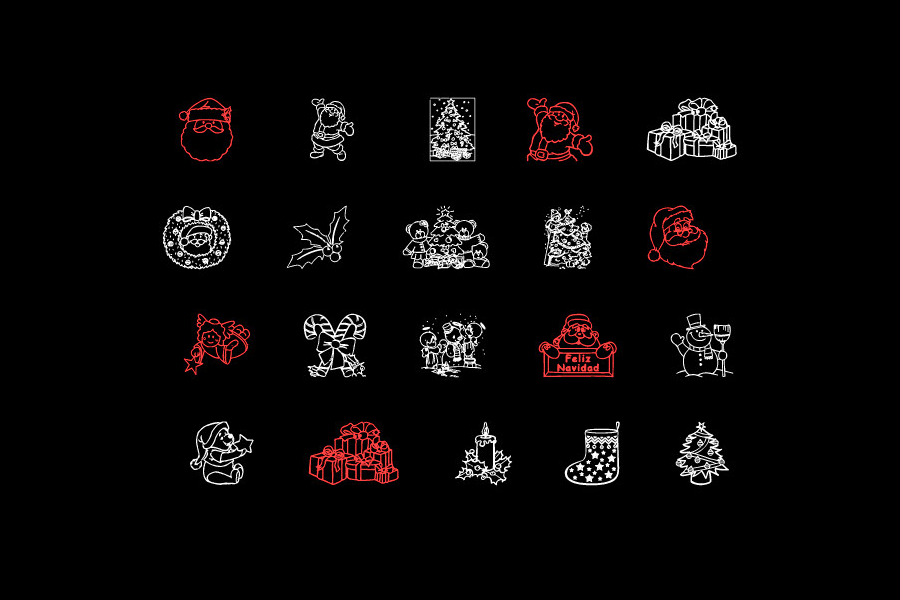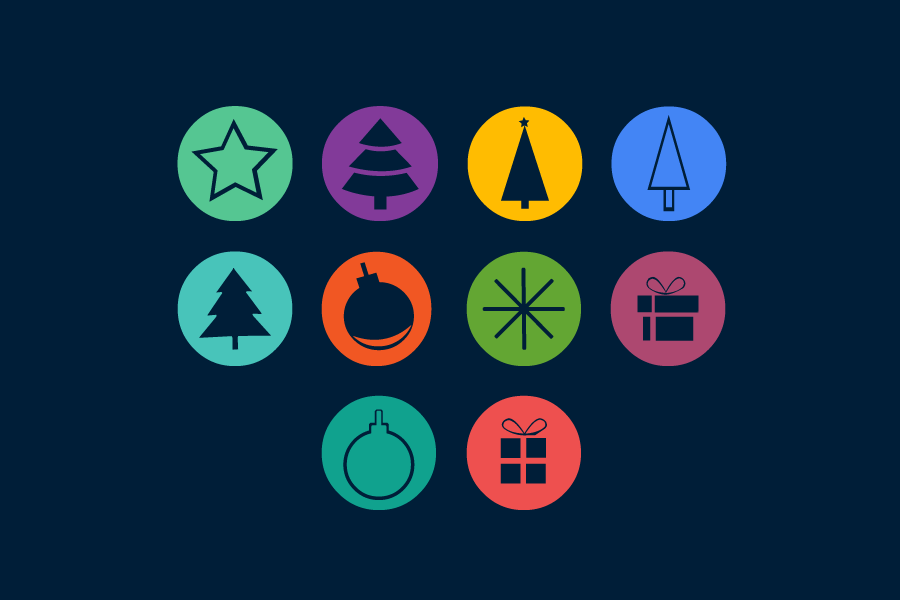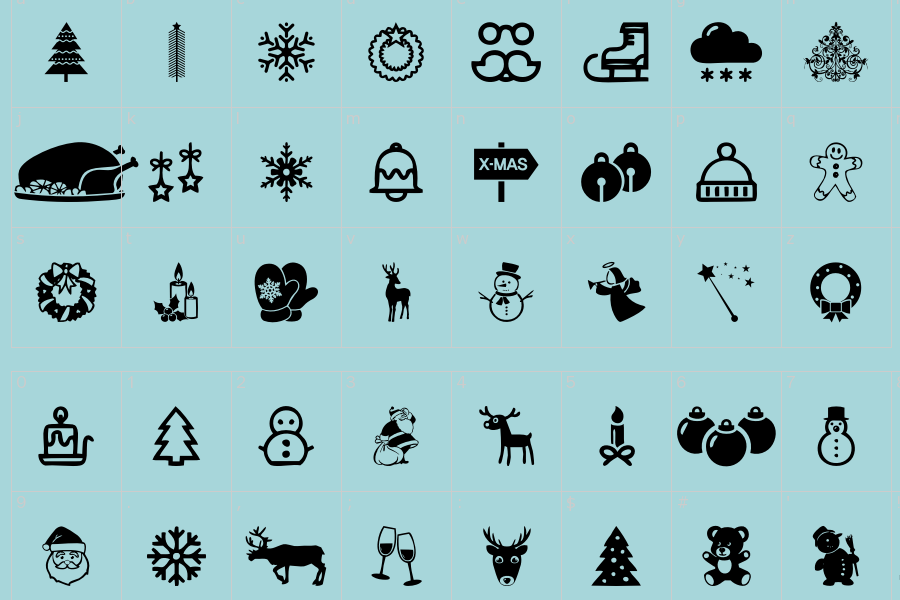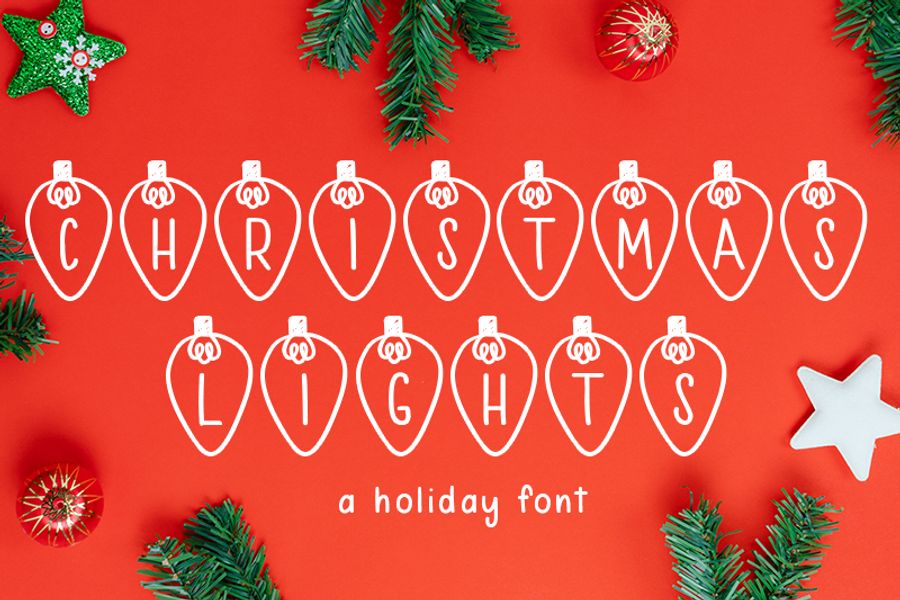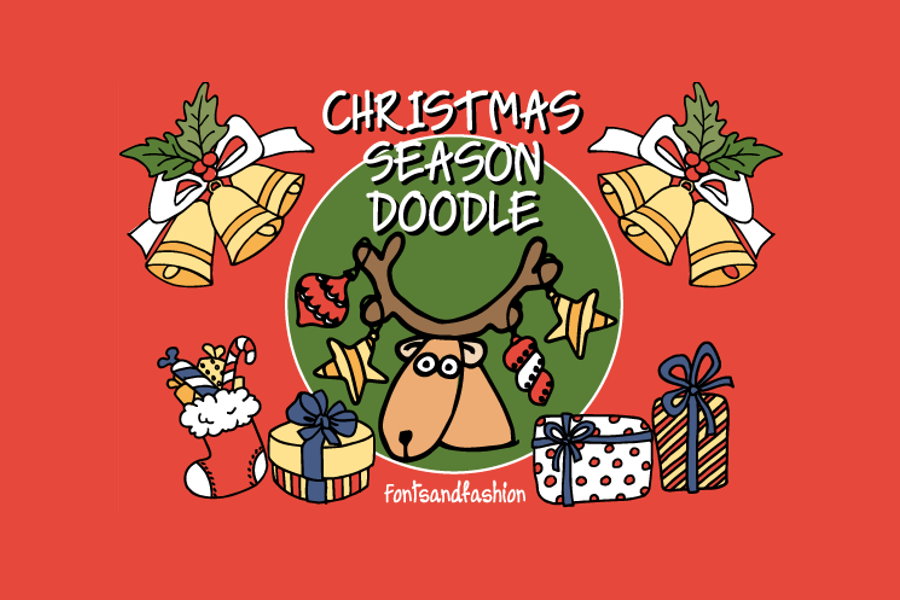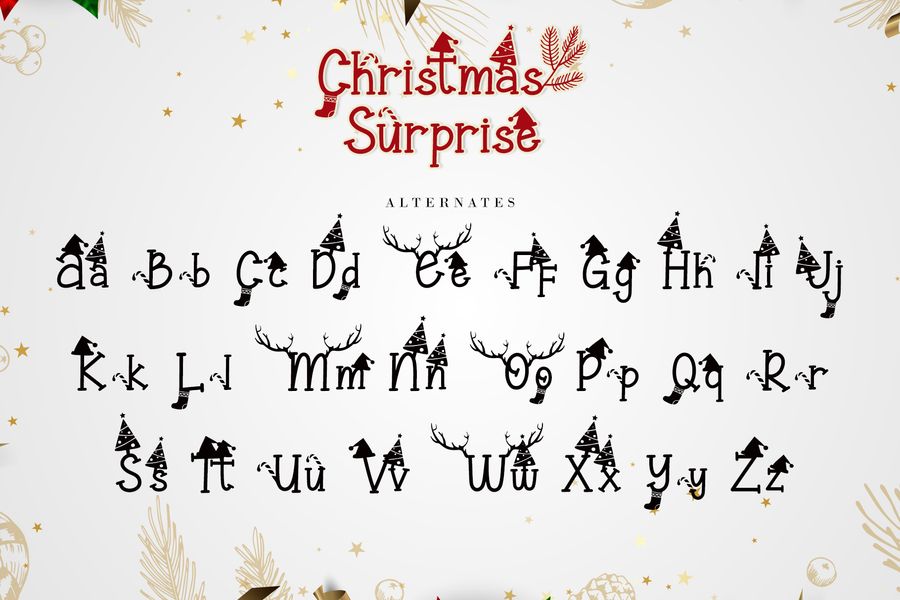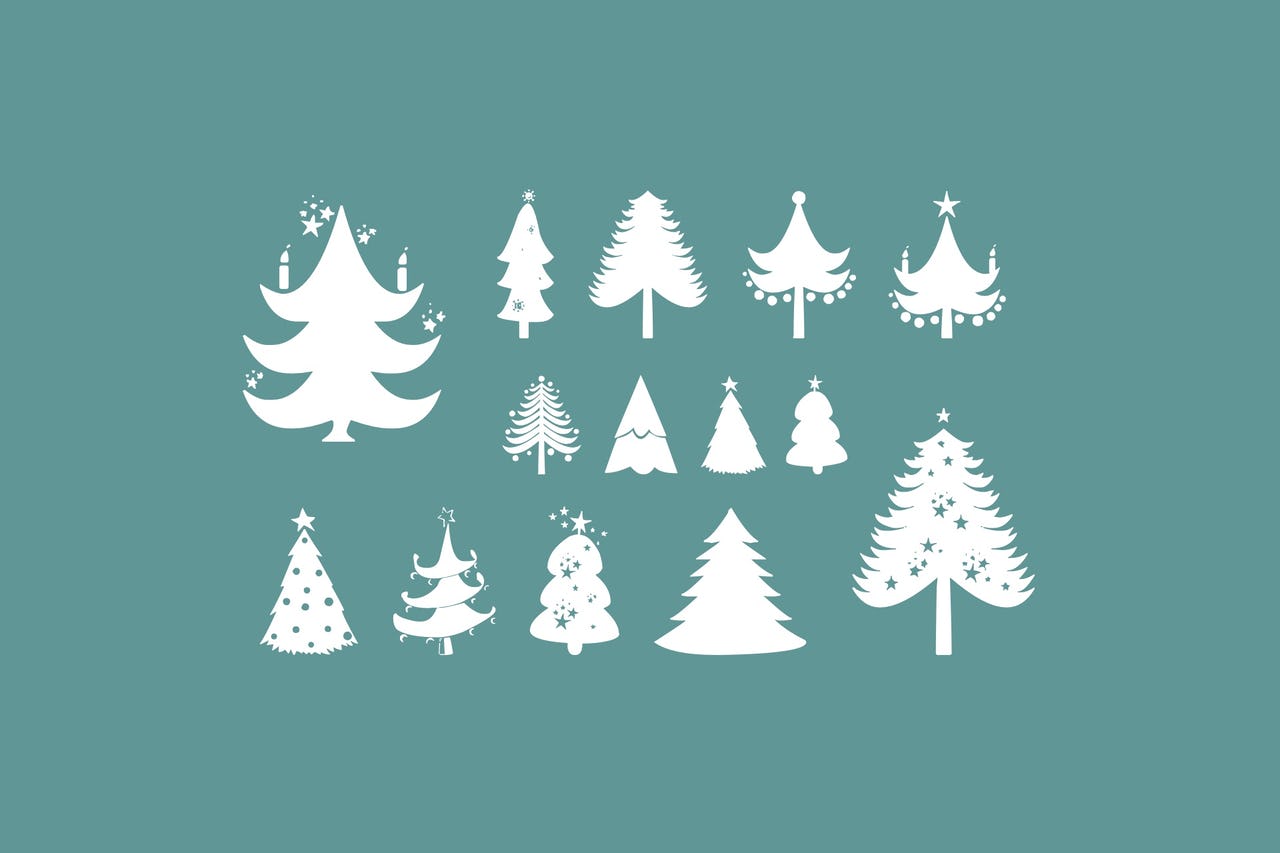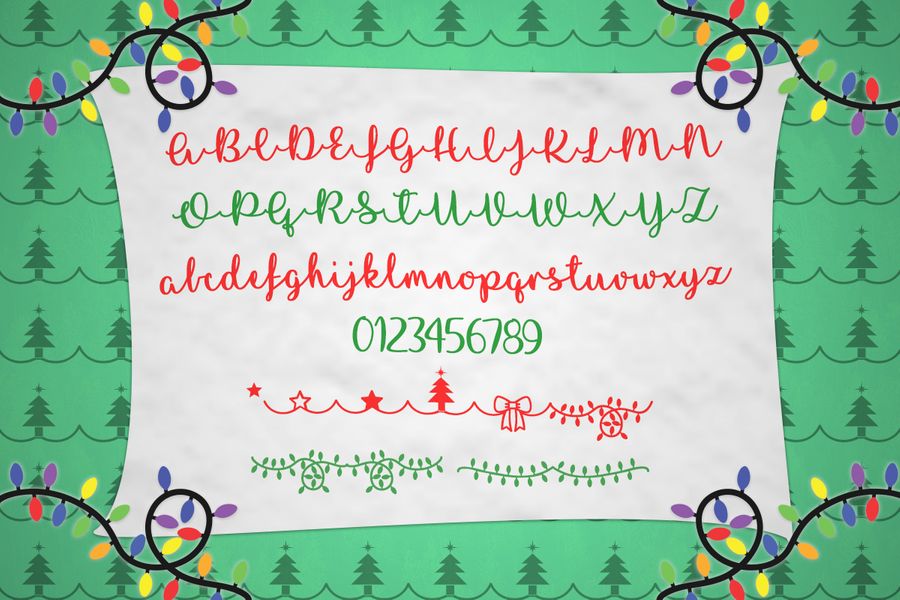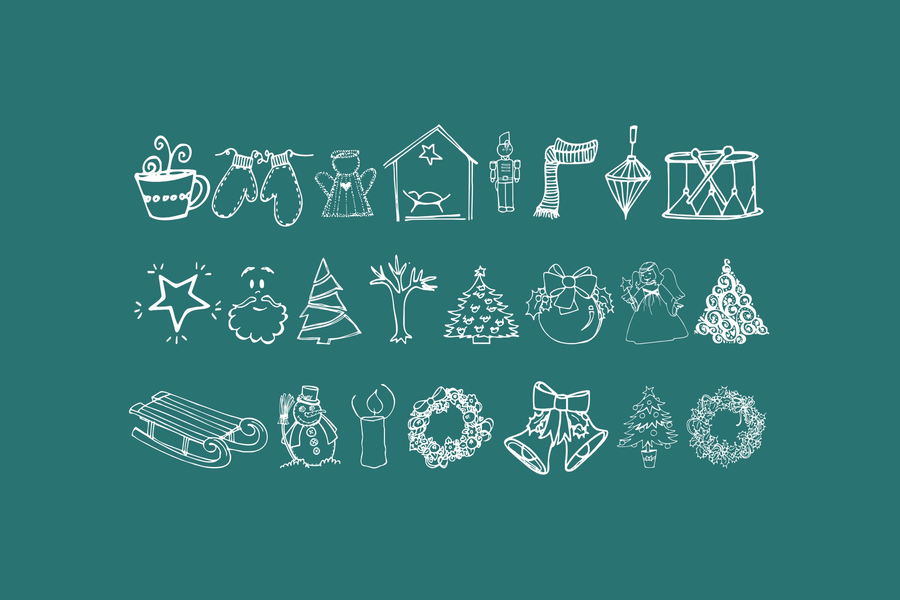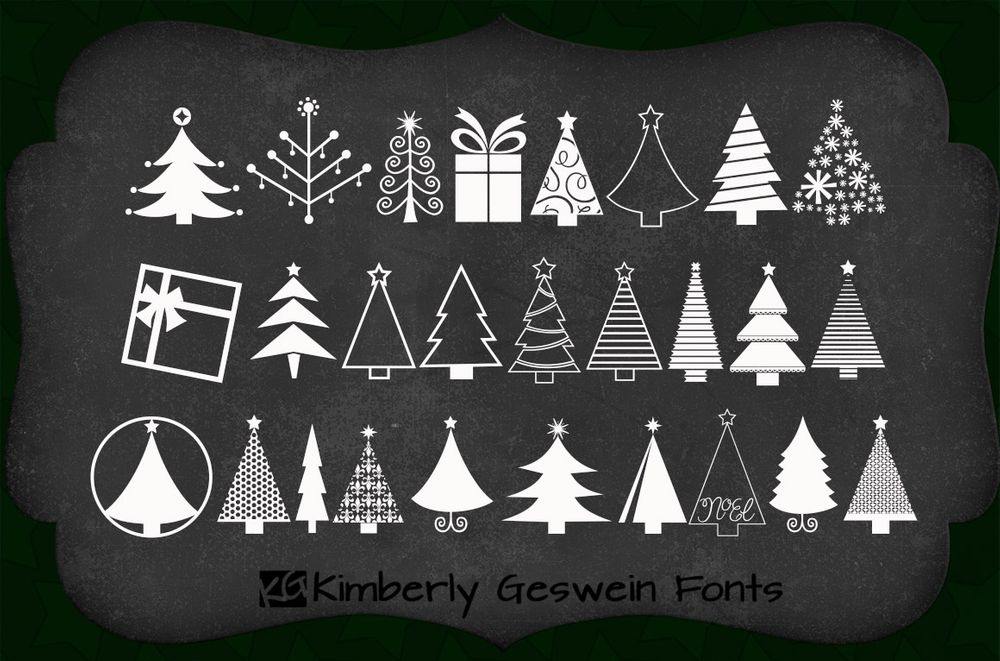
20+ Free Christmas Symbol Fonts for the Holiday Season
Thinking to put into shape your site or design for the holiday season? This collection of Christmas symbol fonts will help you a lot.
Symbol Fonts full of Christmas-related attributs is perfect for the celebration. Find candy canes, deer, snowflakes, and Santa among these cute fonts.
You can use them for your offline and online personal projects, All these free fonts are smooth vector symbols that can be resized with no loss in quality. So, keep a good Christmas vibes and enjoy.
KGChristmas Trees Font
Download SourceRisus LCB Kringlebats Font
It is a free font for personal use created by Cumberland Fontworks. Great for greeting cards, posters, flyers, postcards and any Christmas designs. You can get a commercial license.
Download SourcePWChristmas Font
It is a free font for personal use created by Peax Webdesign. Great for greeting cards, posters, flyers, postcards and any Christmas designs. You can get a commercial license.
Download SourceChristmas Surprise Font
It is a free font for personal use created by AEN Creative Studio. Great for greeting cards, posters, flyers, postcards and any Christmas designs. You can get a commercial license.
Download SourceChristmas Season Doodle Font
It is a free font for personal use created by Fontsandfashion. Great for greeting cards, posters, flyers, postcards and any Christmas designs. Need to donate to get a commercial license.
Download SourceChristmas Trees Font
It is a free font for personal use created by Z-Designs. Great for posters, flyers, postcards and any Christmas designs. Need to donate for a commercial license.